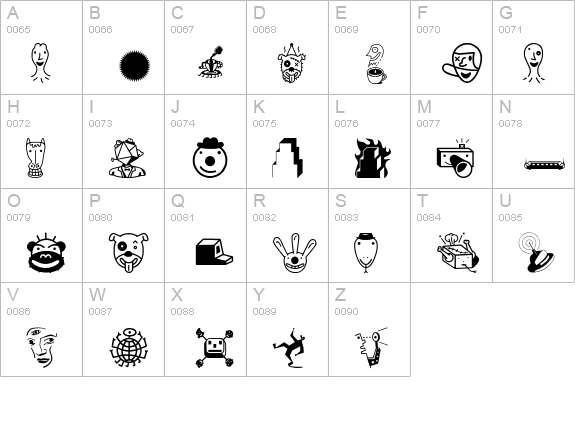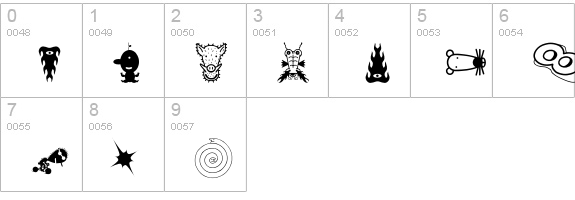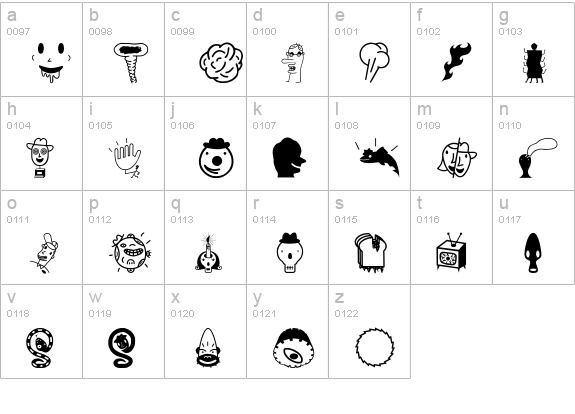
Thingbat Font Details
Introducing Thingbat Font, a captivating and versatile typeface that will bring a touch of creativity and uniqueness to your designs. With its bold and dynamic letterforms, Thingbat Font is perfect for all your graphic design projects, from logos and branding to posters and invitations. This font is a true gem for those seeking to make a statement. Its stylish and modern look is bound to catch the eye and leave a lasting impression. Whether you're designing for a contemporary brand or aiming for a more edgy and rebellious vibe, Thingbat Font will effortlessly convey your message. One of the best things about Thingbat Font is that it is free! That's right, this incredible font is available for you to download at FontsMarket.com. So, not only does it bring a new level of creativity to your designs, but it also comes at no cost to you. It's a win-win situation! So why wait? Download Thingbat Font today and let your creativity soar. With its wide range of characters and glyphs, you'll have endless possibilities to explore and create stunning designs. Don't miss out on this amazing opportunity to enhance your projects with this extraordinary font. Get your hands on Thingbat Font now, and let your imagination run wild!